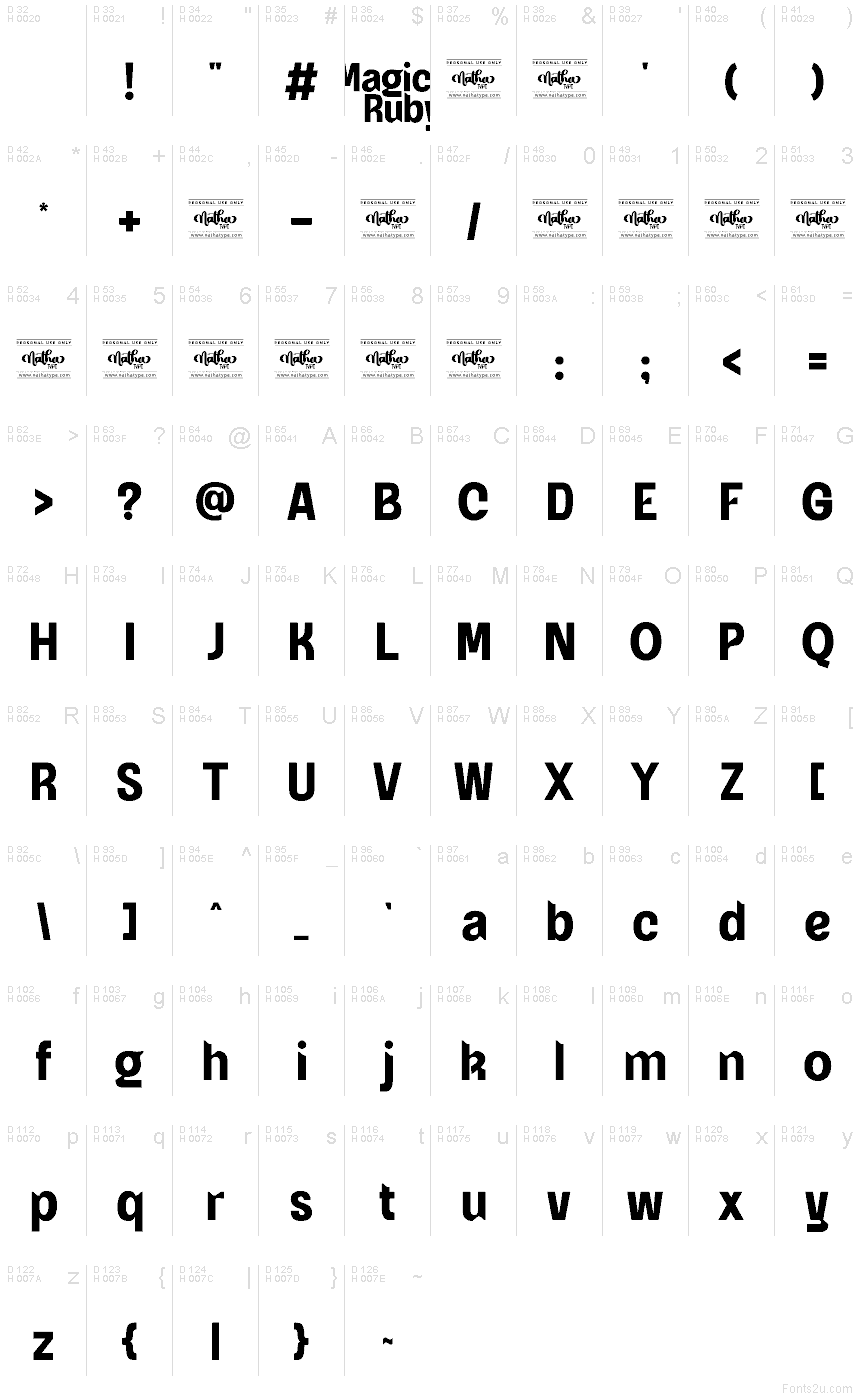
Magic Ruby Personal Use
Magic Ruby font by Nathatype is a free sans serif font that combines bold presence with modern aesthetic at the highest level. The simple elegance of this unique visual style makes it one of the finest tools for cultural design work. Magic Ruby is as versatile in application as it is fascinating in features.
Use Magic Ruby across your brand identity projects as well as in labeling, marketing, packaging, and even advertising designs. This free font will also look amazing on headlines and cover titles for books and magazines.